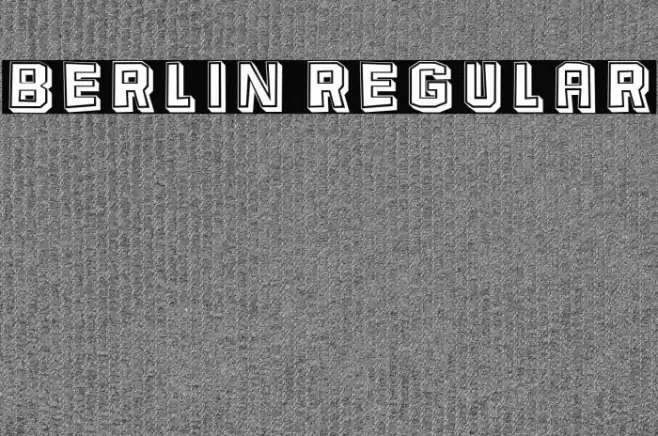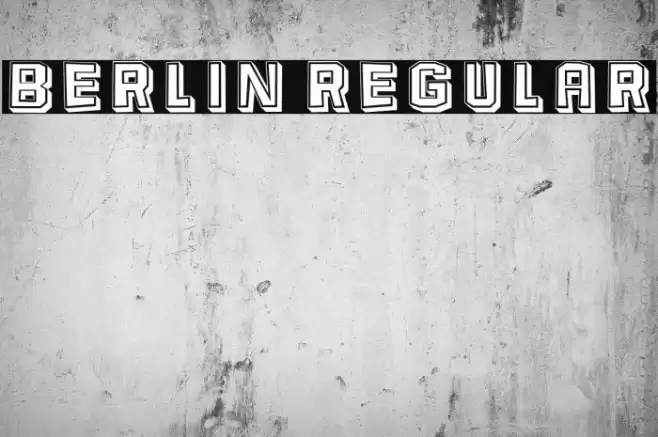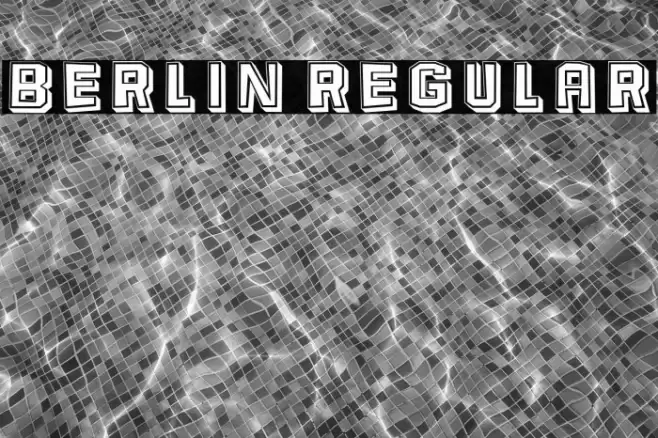
Berlin Regular Font
Berlin Regular Description
This font features a bold, three-dimensional design with a strong, geometric structure. Each character is outlined with a thick border, creating a shadow effect that adds depth and visual interest. The letters are uppercase and have a blocky, angular appearance, reminiscent of architectural elements. The numbers and special characters follow the same style, ensuring consistency across all glyphs. This font is ideal for making a statement, with its eye-catching and dynamic look.
A bold, three-dimensional font with geometric, angular characters from Uncategorized fonts.